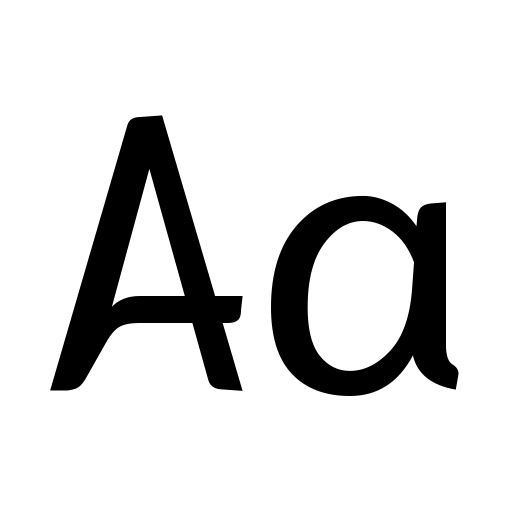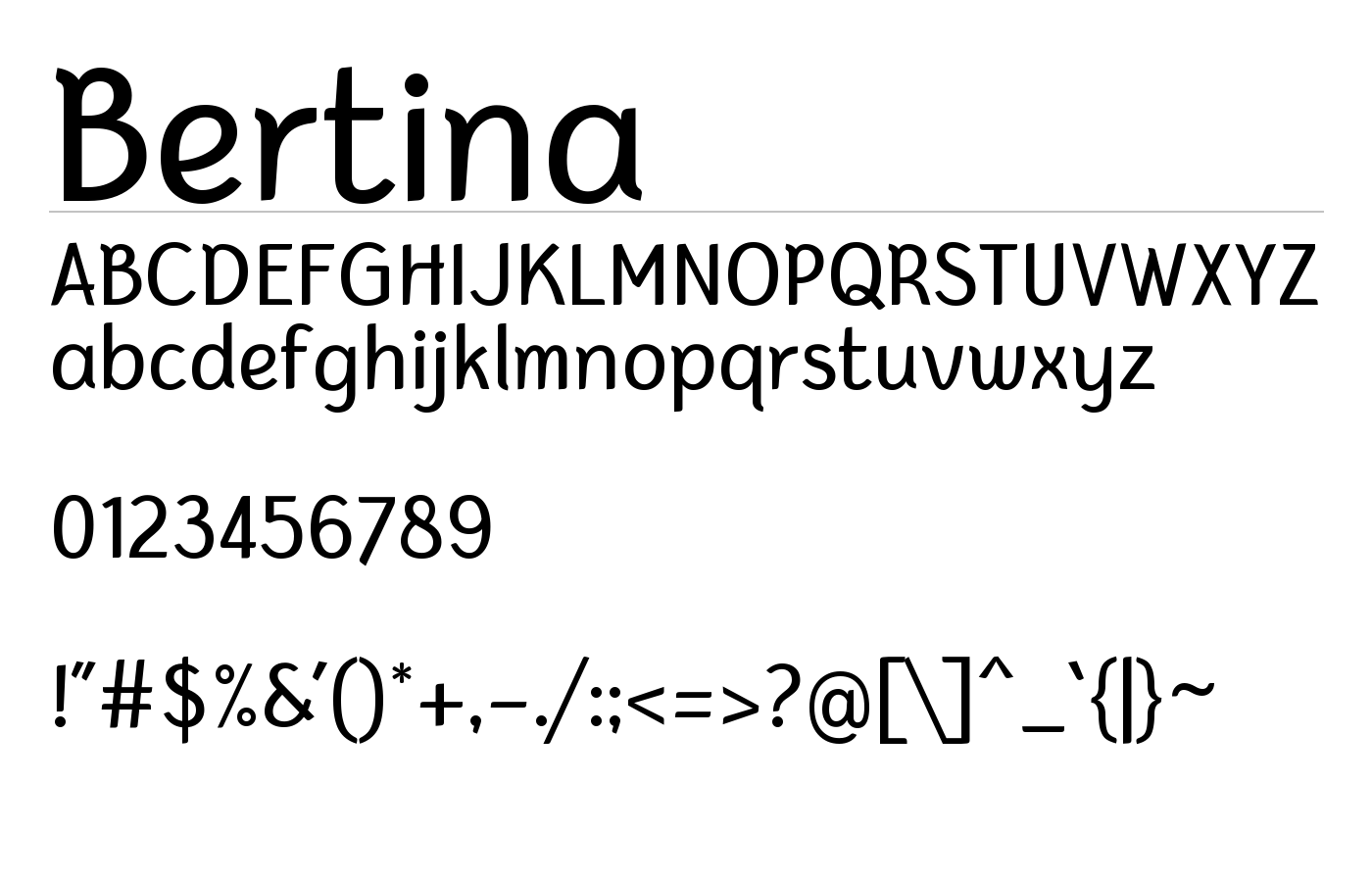
Bertina is a playful sans serif font with a unique hand-crafted feel, characterized by its gentle curves and slight stroke contrast. Its casual style and friendly letterforms make it ideal for creative projects, branding, and editorial designs that seek an approachable and distinctive personality. This font works particularly well in logos and headlines where a warm and charming tone is desired.
Bertina Font
About Bertina Font